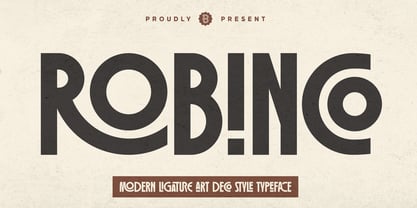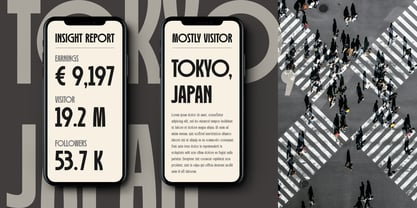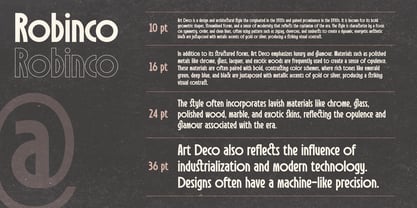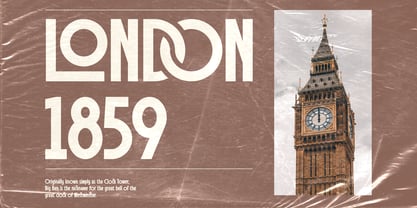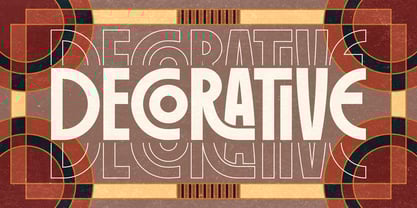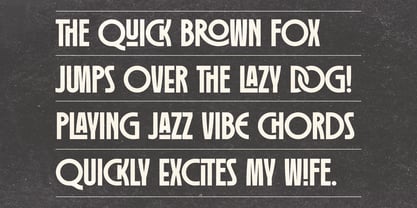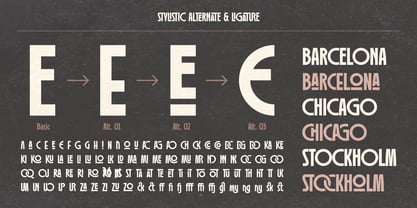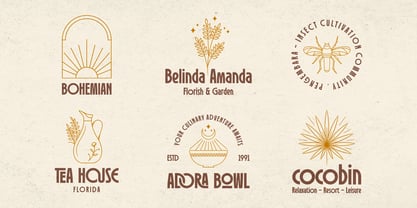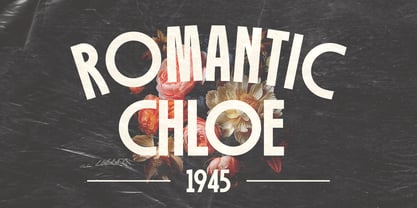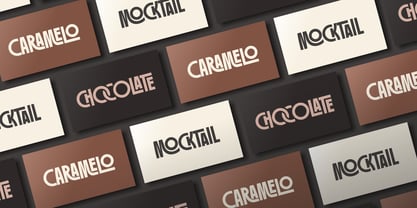
Robinco
by Asenbayu
The Robinco Font Family was designed by Bayu Noor Witarsa and published by Asenbayu. Robinco contains 1 styles. More about this family
Robinco is modern ligature art deco style font. This font embody a timeless combination of luxury, boldness, and geometric elegance, making them perfect for designs that seek to evoke a sense of classic sophistication and modernity. This font is suitable for trendy packaging label designs, unique desired logos, poster designs, fashion and many more.
Robinco font features: Standard glyph, stylistic alternates, stylistic ligatures, symbol, punctuation and multiple languages supported.